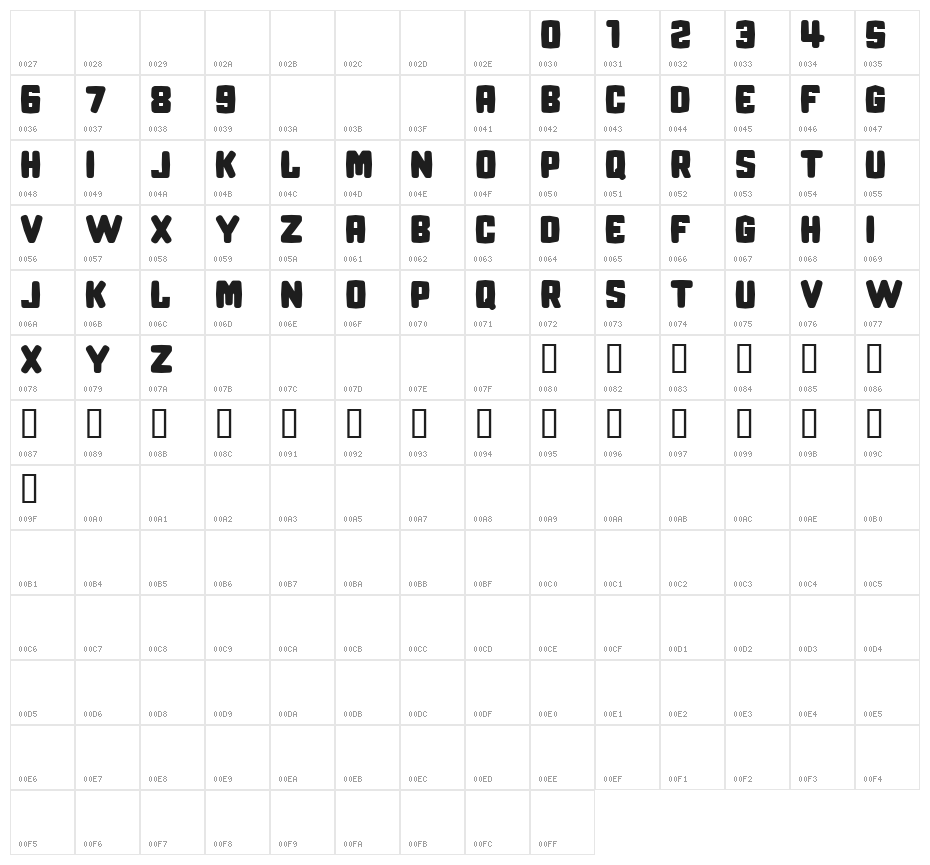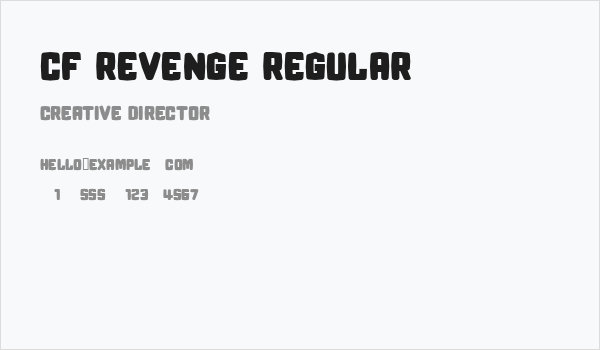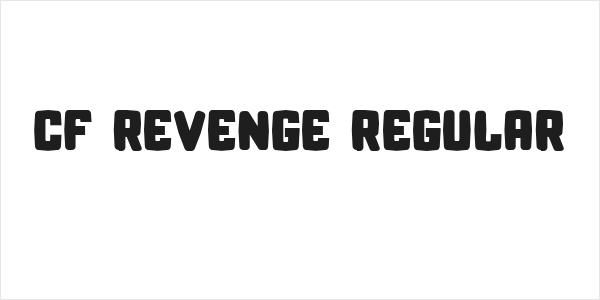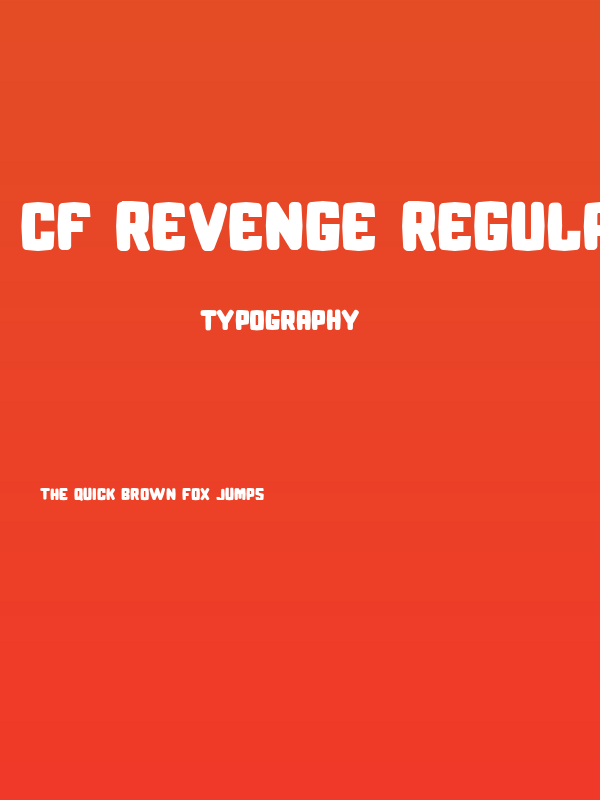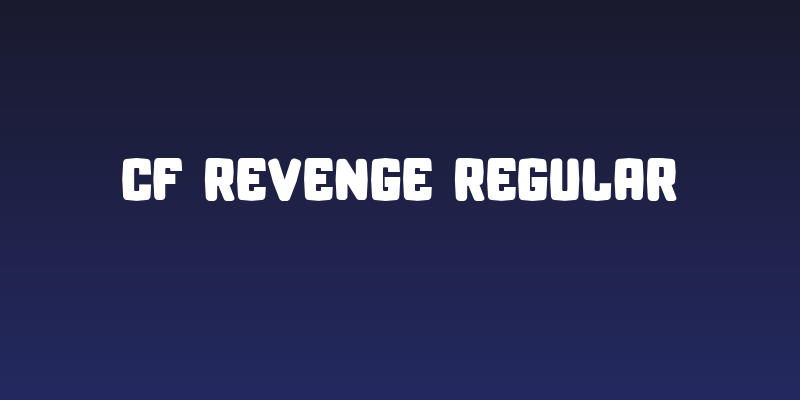
CF Revenge Regular Font
CF Revenge Regular Description
This font features bold, blocky characters with a strong presence, making it ideal for impactful designs. The letters are uniformly thick, with rounded edges that soften the overall look while maintaining a sense of strength and stability. The numbers and special characters follow the same design principles, ensuring consistency across all elements. Its boldness and unique style make it stand out, suitable for projects that require a commanding visual element.
| Proposed Projects | Ideal for posters, headlines, logos, and branding materials that need a bold statement. |